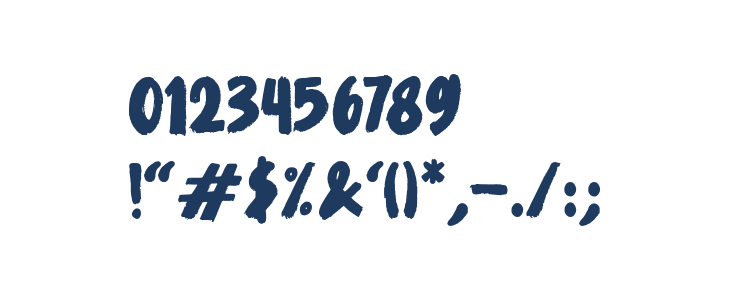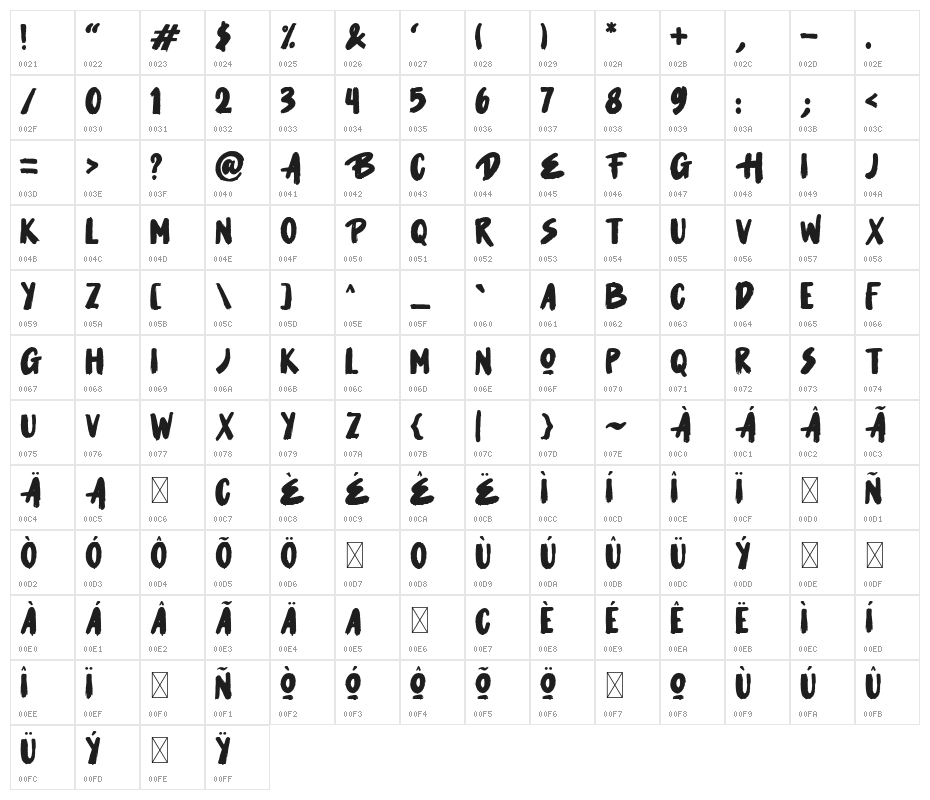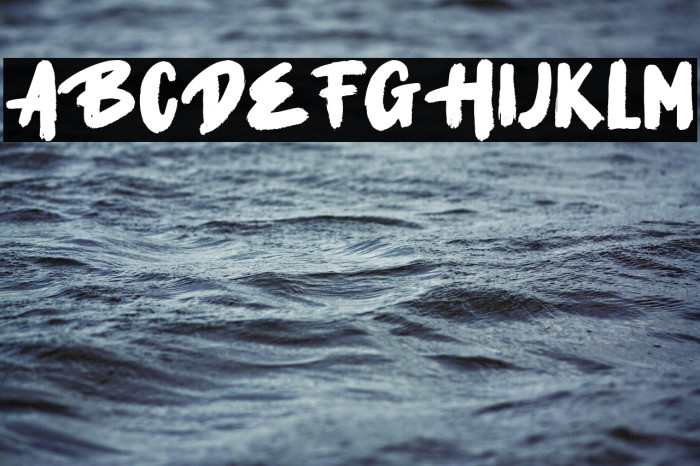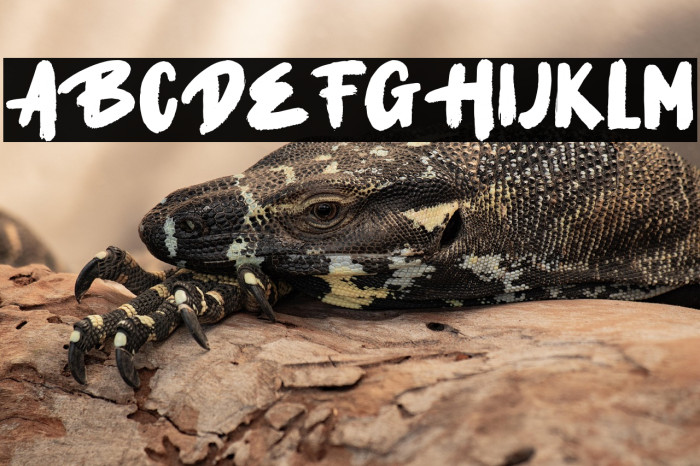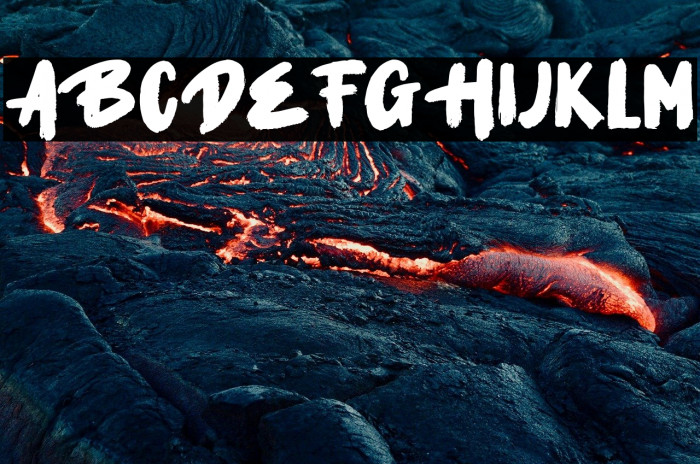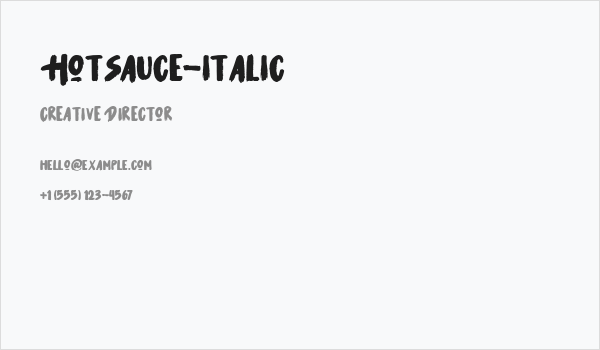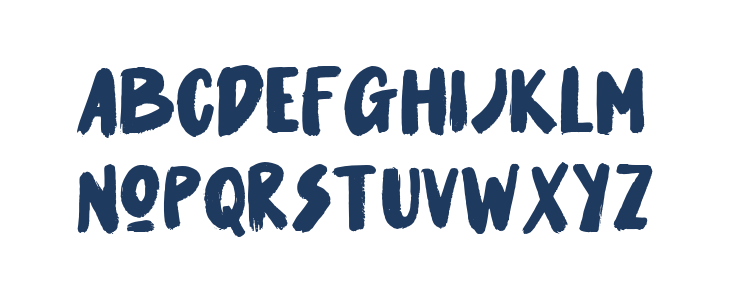
HotSauce-Italic Font
HotSauce-Italic Description
This font features a bold and expressive style with a hand-painted appearance, characterized by thick strokes and a dynamic, energetic feel. The letters are slightly slanted, giving it an italicized look that adds to its lively and informal nature. The uppercase and lowercase letters maintain a consistent weight, creating a cohesive and impactful visual presence. The numbers and special characters follow the same bold and artistic design, making them stand out. This font is ideal for projects that require a strong and creative statement, such as posters, branding, and headlines.
| Proposed Projects | Ideal for posters, branding, headlines, and any project needing a bold, artistic touch. |